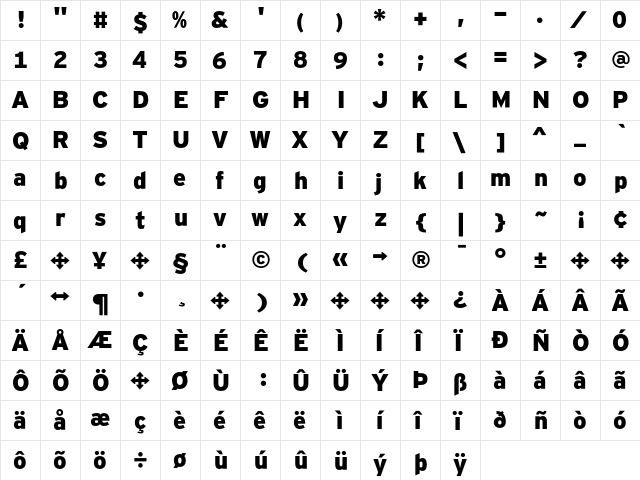
Interstate Mono - Blk Regular
Design Context for Interstate Mono - Blk Typeface
Interstate Mono - Blk brings the precise, column-aligned rhythm of monospaced typography to designs that value technical clarity and systematic order.
Pro Tip: Pair Interstate Mono - Blk with a proportional sans for UI contexts where code-style labels and regular body copy need to coexist.